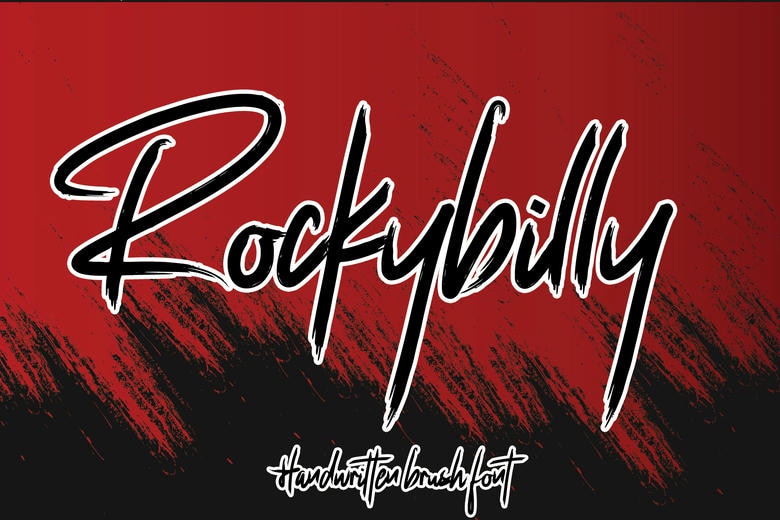
Rockybilly Font
Rockybilly is an electrifying brush font that has a feel for vibrancy and dynamism. With its bold and expressive strokes, it conveys the spirit of spontaneity and liveliness. Every letter is carefully designed and focused on quick brush strokes and pressure drawing which leads to a font that really stands out.
Whether you’re looking to add a bit of edginess or add a burst of energy to your designs, this font is your go-to choice. Let your creativity soar free with Brushed Energy and see your creations come to life with a captivating charm and irresistible energy.